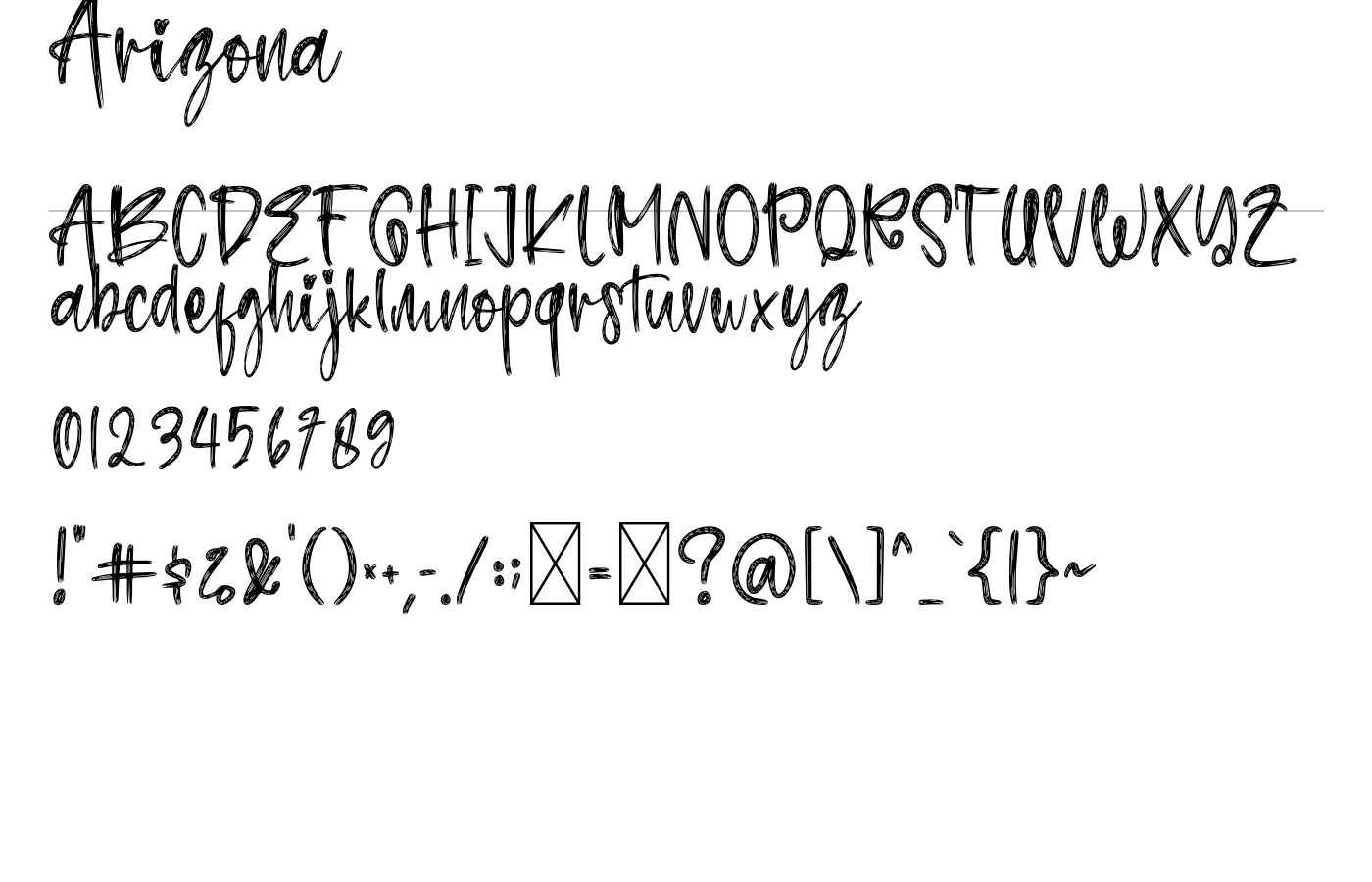
Arizona is a playful and lively script font with a hand-drawn, brush-style appearance that brings a personal and artistic touch to any design. Its tall, narrow letterforms with varied stroke thickness and subtle texture convey a casual yet stylish vibe, making it perfect for creative branding, invitations, and social media graphics that seek a friendly and charming personality.
Arizona Font
About Arizona Font
| Font family | Arizona Font |
| Designer | Alghul |